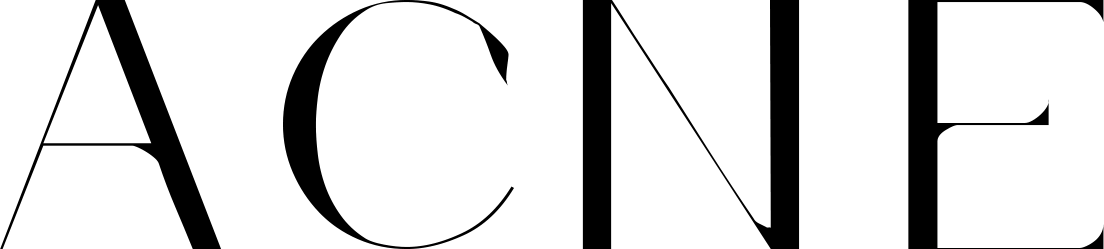
Acne Font
Welcome to the unique modern font! Acne is a new friendly sans serif font that only contains uppercase. This font with its thin design can be the perfect choice to use in a fashion magazine, branding, social media, signa…
Welcome to the unique modern font! Acne is a new friendly sans serif font that only contains uppercase. This font with its thin design can be the perfect choice to use in a fashion magazine, branding, social media, signage, and other creative graphic projects. Give it a try just now and create a fashion vibe in your writing style. Enjoy!
A quick experimental font inspired by the brand Acne and the fashion sort of vibe.